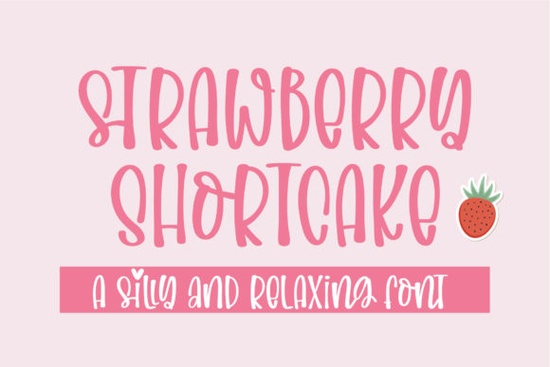
If you’ve been searching for a handwritten font that feels personal, playful, and just a little bit sweet, the Strawberry Shortcake Font might be exactly what your next project needs. It’s not overly polished or stiff it’s got that relaxed, slightly uneven charm that makes designs feel handmade and heartfelt. Whether you’re labeling jars for a farmers market booth, designing greeting cards, or putting together social media graphics for a small bakery, this font adds warmth without trying too hard.
What kinds of projects work best with Strawberry Shortcake?
This font shines when used in casual, creative, or emotionally expressive contexts. Think:
- Wedding invites or baby shower decorations where you want something soft and personal
- Print-on-demand items like mugs, tote bags, or T-shirts with cozy, handwritten quotes
- Small business branding especially bakeries, florists, or craft studios
- Scrapbooking or journaling layouts that need a touch of whimsy
It’s not meant to replace clean sans-serifs for corporate reports or legal documents. But if your goal is to create something that feels inviting, human, and maybe even a little nostalgic, Strawberry Shortcake delivers. You might also like how Baby Megista handles delicate letterforms for similar uses both fonts share that gentle, handcrafted vibe.
How does it pair with other fonts?
One of the easiest ways to make Strawberry Shortcake stand out is by pairing it with a simple, clean typeface. Try using it for headlines or decorative text while letting a neutral sans-serif handle body copy. For example:
- Headline: Strawberry Shortcake
- Body text: Montserrat, Lato, or even Arial
If you’re going for an all-script look, consider mixing it with Thank You Nurses for contrast one has more bounce, the other more flow. Or try layering it subtly behind Biró Script in a poster design to add texture without clutter.
Any tips for getting the most out of this font?
A few small tweaks can make a big difference:
- Adjust letter spacing slightly sometimes handwritten fonts benefit from a tiny bit more breathing room between characters.
- Use sparingly. One or two words in Strawberry Shortcake can carry more personality than a whole paragraph.
- Try it over textured backgrounds watercolor paper, linen, or chalkboard textures complement its organic style beautifully.
- Lowercase looks best. The font’s charm lives in its casual lowercase forms. Save ALL CAPS for rare emphasis.
Also, don’t be afraid to play with color. Soft pinks, warm creams, or muted greens help reinforce the cozy, homemade aesthetic this font naturally suggests.
It’s not a “trendy” font chasing viral aesthetics it’s more of a reliable tool you’ll reach for again and again because it simply feels right in the right context.